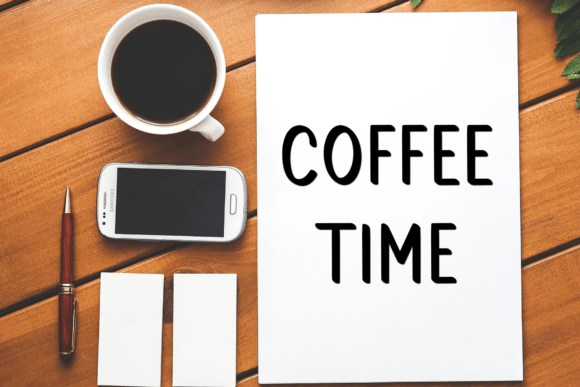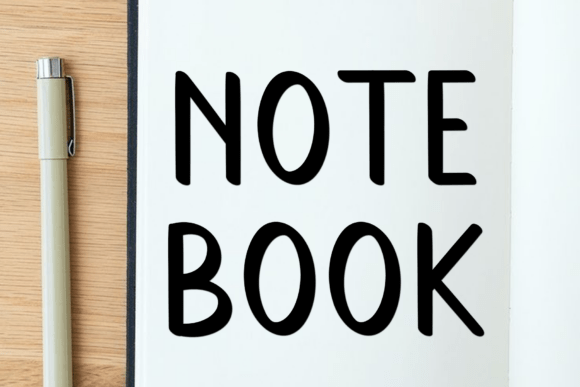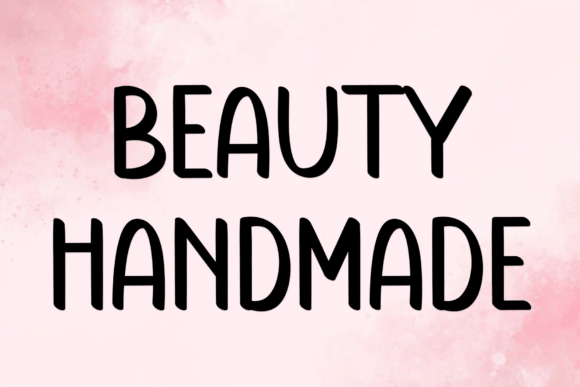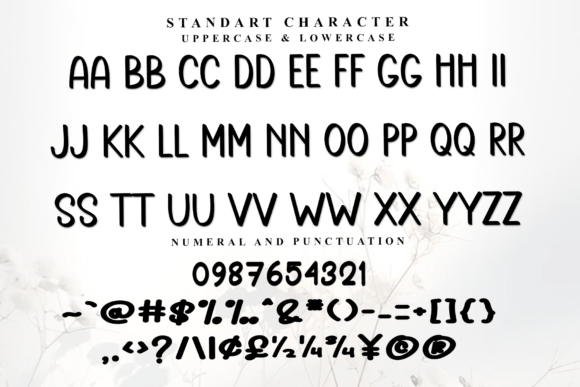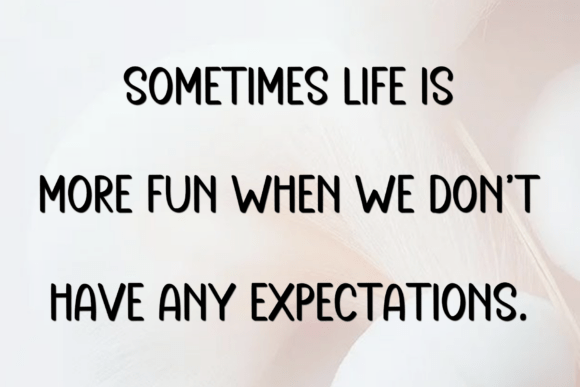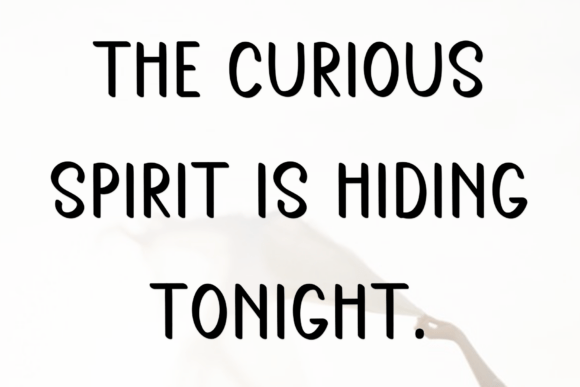
Introducing Happy Santa Font: The Perfect Addition to Your Design Projects
Are you looking for a font that can add a touch of magic to your design projects? Look no further than the Happy Santa Font. This beautiful and eye-catching font is designed with a soft, unique touch that is sure to make your designs stand out. With its distinctive strokes and versatile characters, Happy Santa is the perfect choice for designers, crafters, and creatives of all kinds.
A Font with a Special Character
Happy Santa Font is designed with a unique and special character that sets it apart from other fonts. Its soft and rounded strokes give it a friendly and approachable feel, making it perfect for designs that require a touch of warmth and personality. Whether you’re working on a holiday-themed project or a design that requires a playful and whimsical touch, Happy Santa Font is the perfect choice.
Versatile and Meaningful
One of the best things about Happy Santa Font is its versatility. With a wide range of characters and symbols, you can use it to create a variety of designs, from festive holiday cards to playful craft projects. The font’s distinctive strokes and unique character make it meaningful and memorable, ensuring that your designs will stand out and leave a lasting impression.
Ideal for a Wide Range of Products
Happy Santa Font is ideal for a wide range of products, from holiday-themed decorations and cards to craft projects and DIY designs. Its natural font style and unique character make it perfect for designs that require a touch of personality and whimsy. Whether you’re creating products for personal use or for sale, Happy Santa Font is sure to enhance your designs and make them appealing to a wide range of audiences.
Enhance Your Designs with Happy Santa Font
If you’re looking for a font that can enhance your designs and make them more appealing to your audience, look no further than Happy Santa Font. With its unique character, versatile characters, and compatibility with a wide range of applications, this font is sure to take your designs to the next level. Whether you’re a designer, crafter, or creative, Happy Santa Font is the perfect addition to your design toolkit.
Key Features of Happy Santa Font
- Beautiful and eye-catching font with a soft, unique touch
- Distinctive strokes and special character make it meaningful and memorable
- Perfect for design projects, crafts, and other creative works
- Ideal for holiday-themed designs, DIY projects, and products
- Enhances designs and makes them appealing to a wide range of audiences
In conclusion, Happy Santa Font is a beautiful and versatile font that is perfect for designers, crafters, and creatives of all kinds. With its unique character, distinctive strokes, and compatibility with a wide range of applications, this font is sure to enhance your designs and make them more appealing to your audience. Whether you’re working on a holiday-themed project or a design that requires a playful and whimsical touch, Happy Santa Font is the perfect choice.